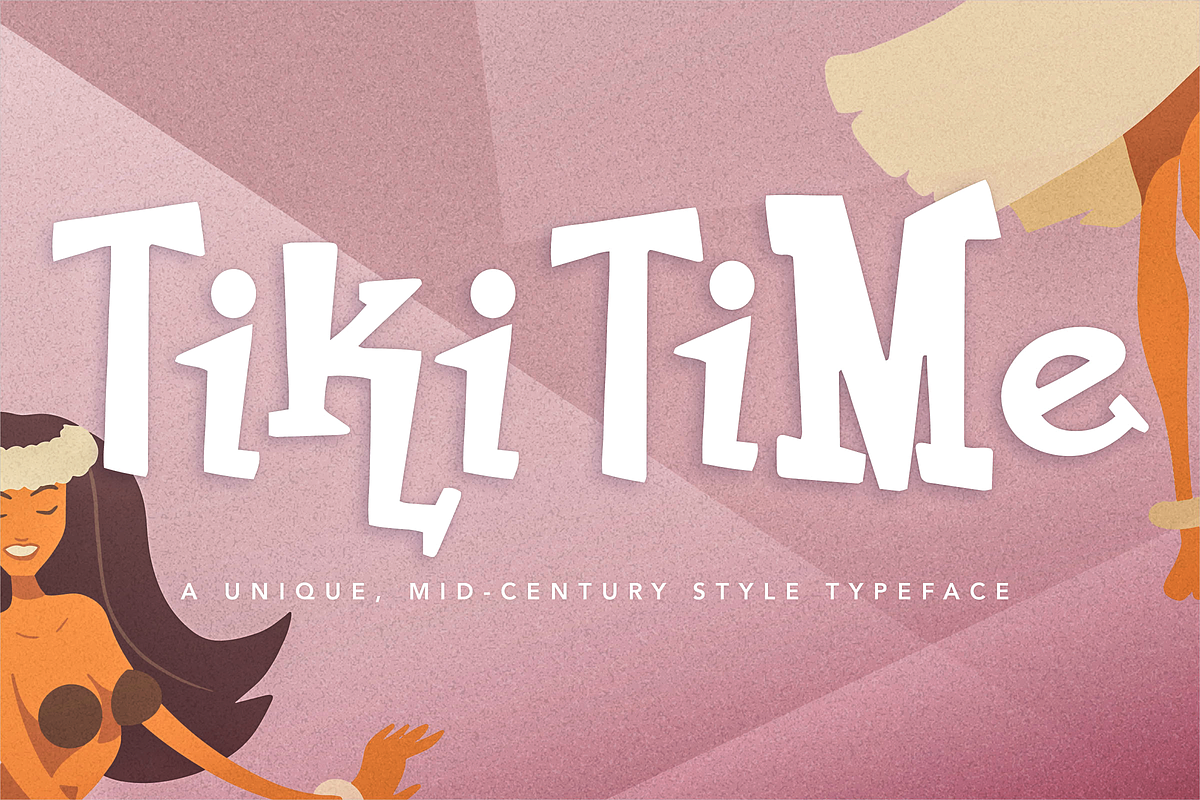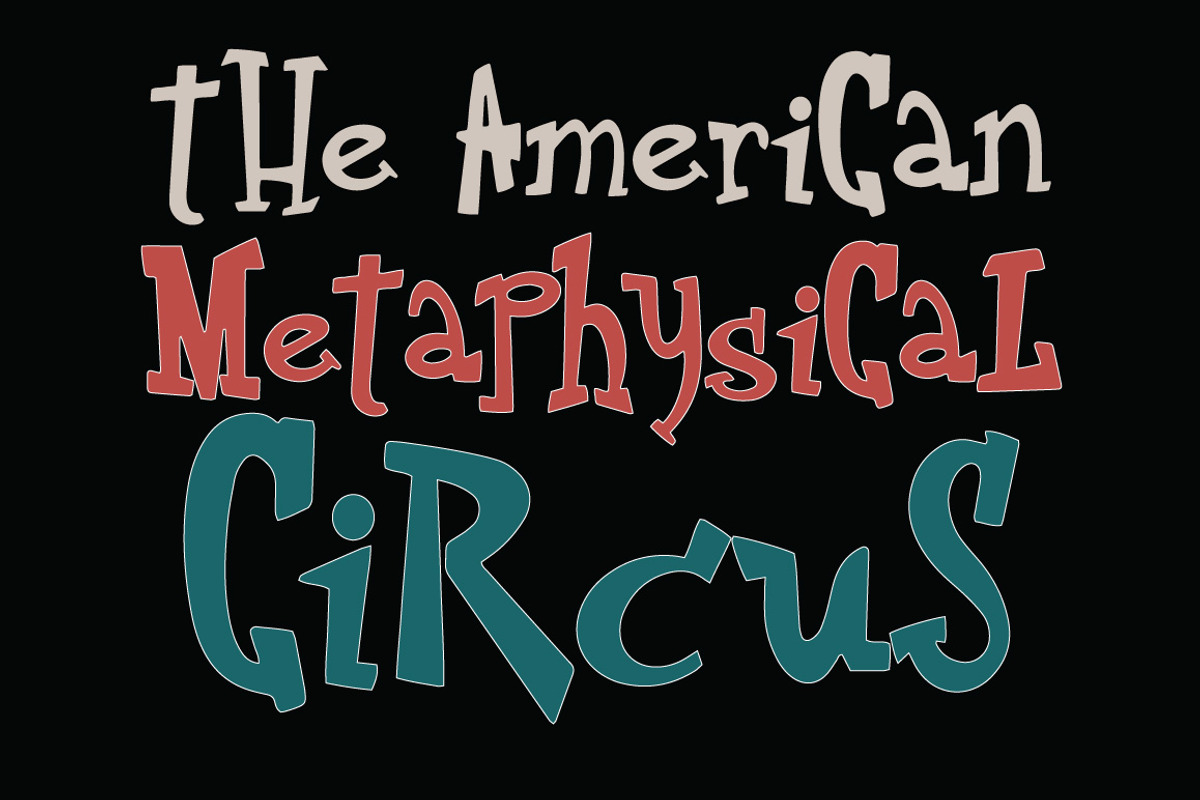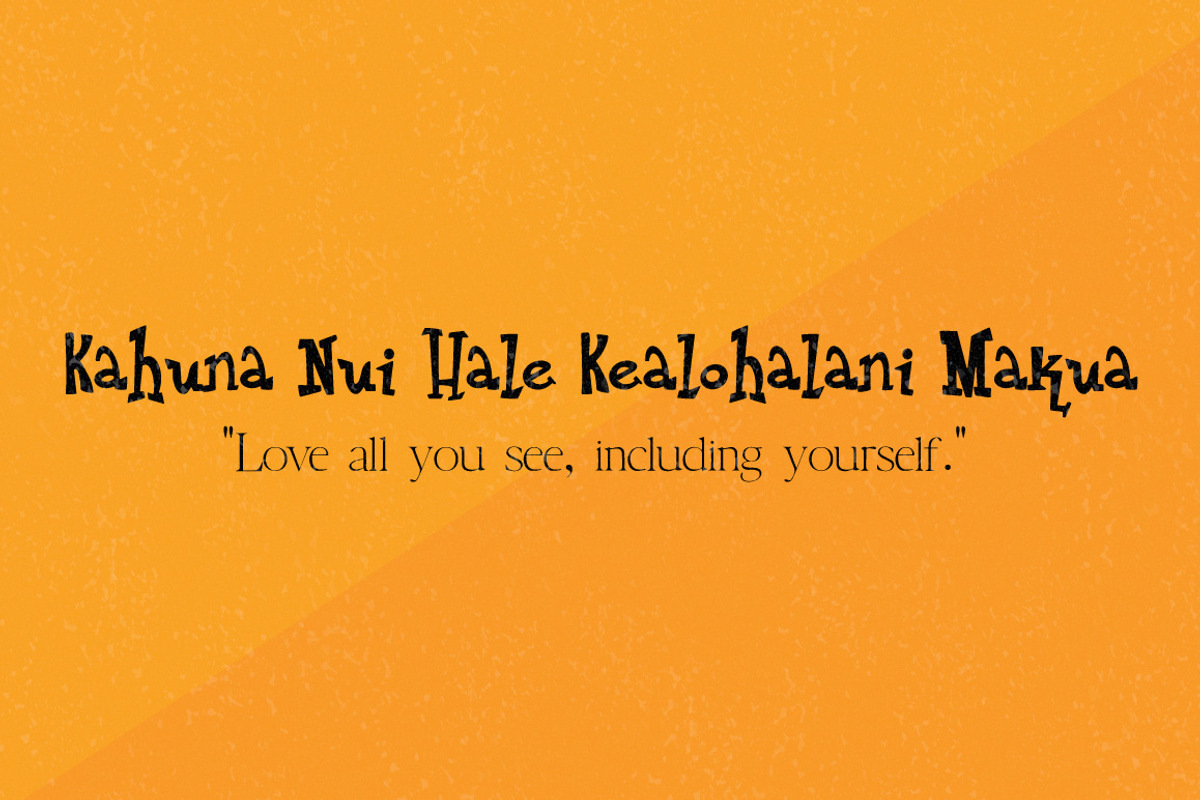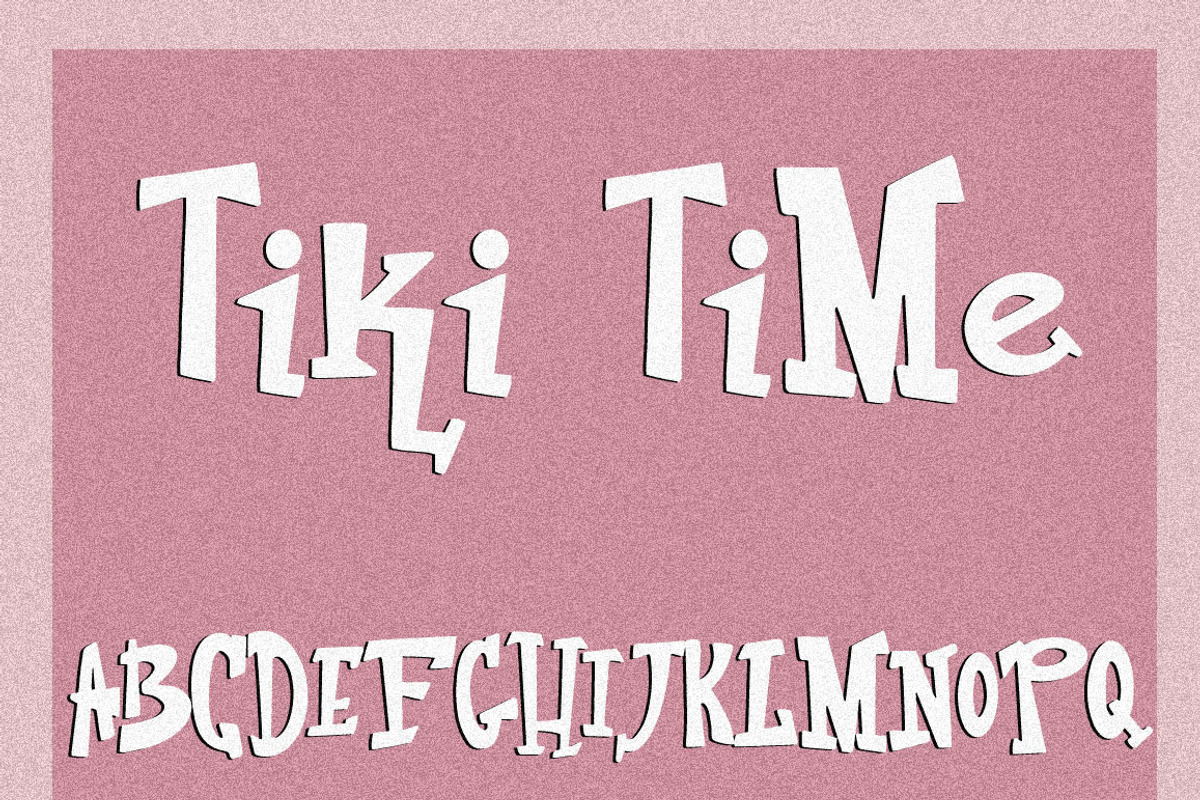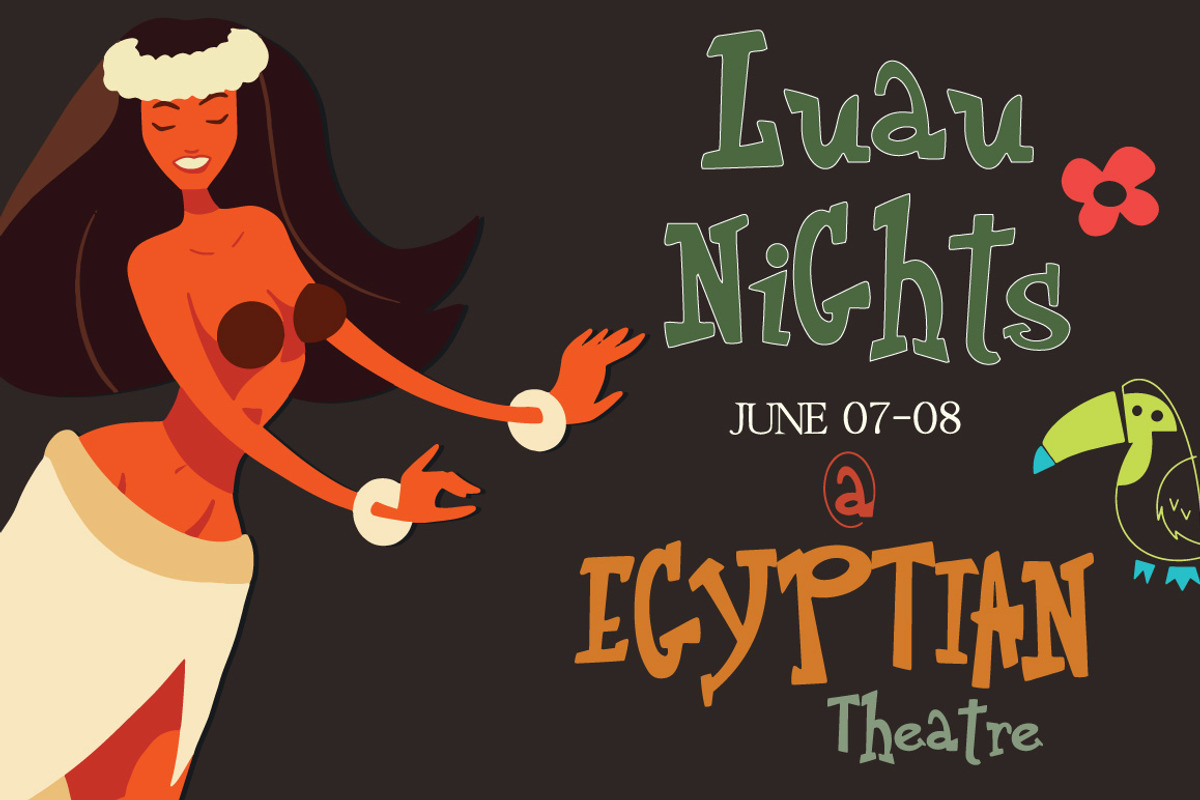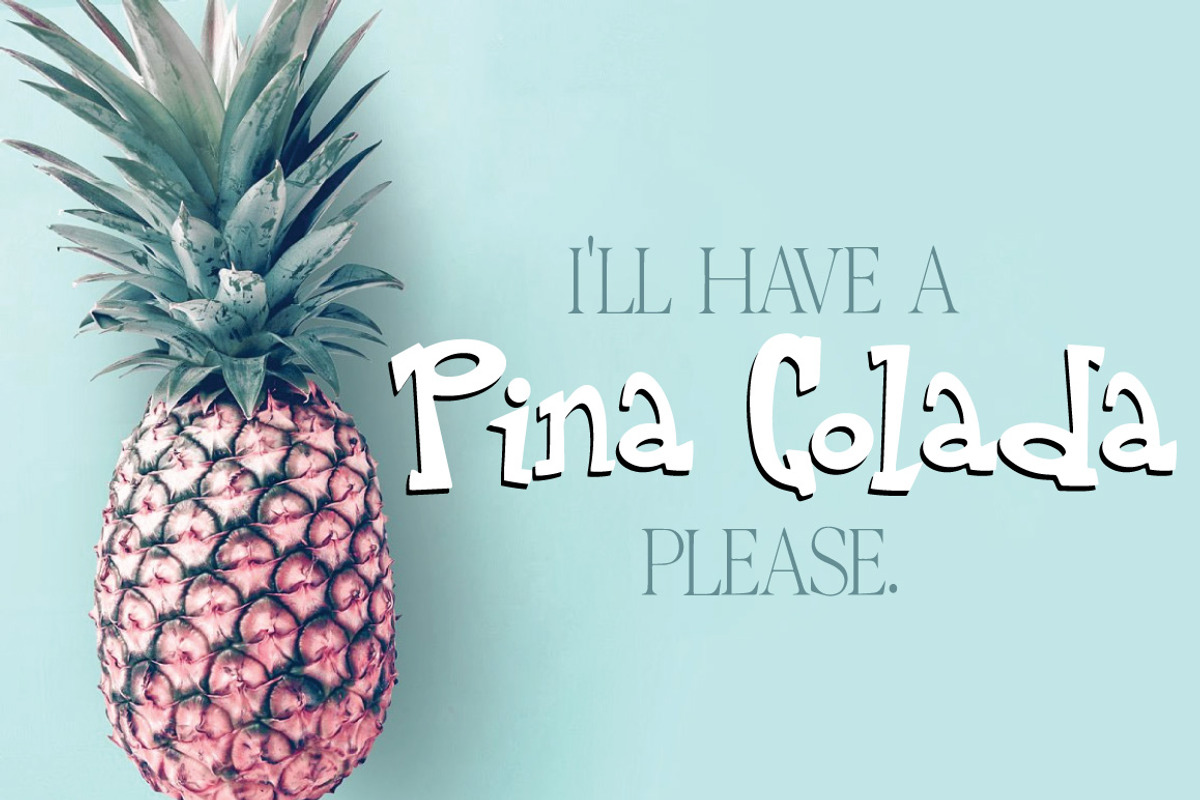
Tiki Time Font Collection
Inspired by the Hawaiian culture so, I make this font. This font got a lot of characters also so much fun to play with. Goes well for your project :)